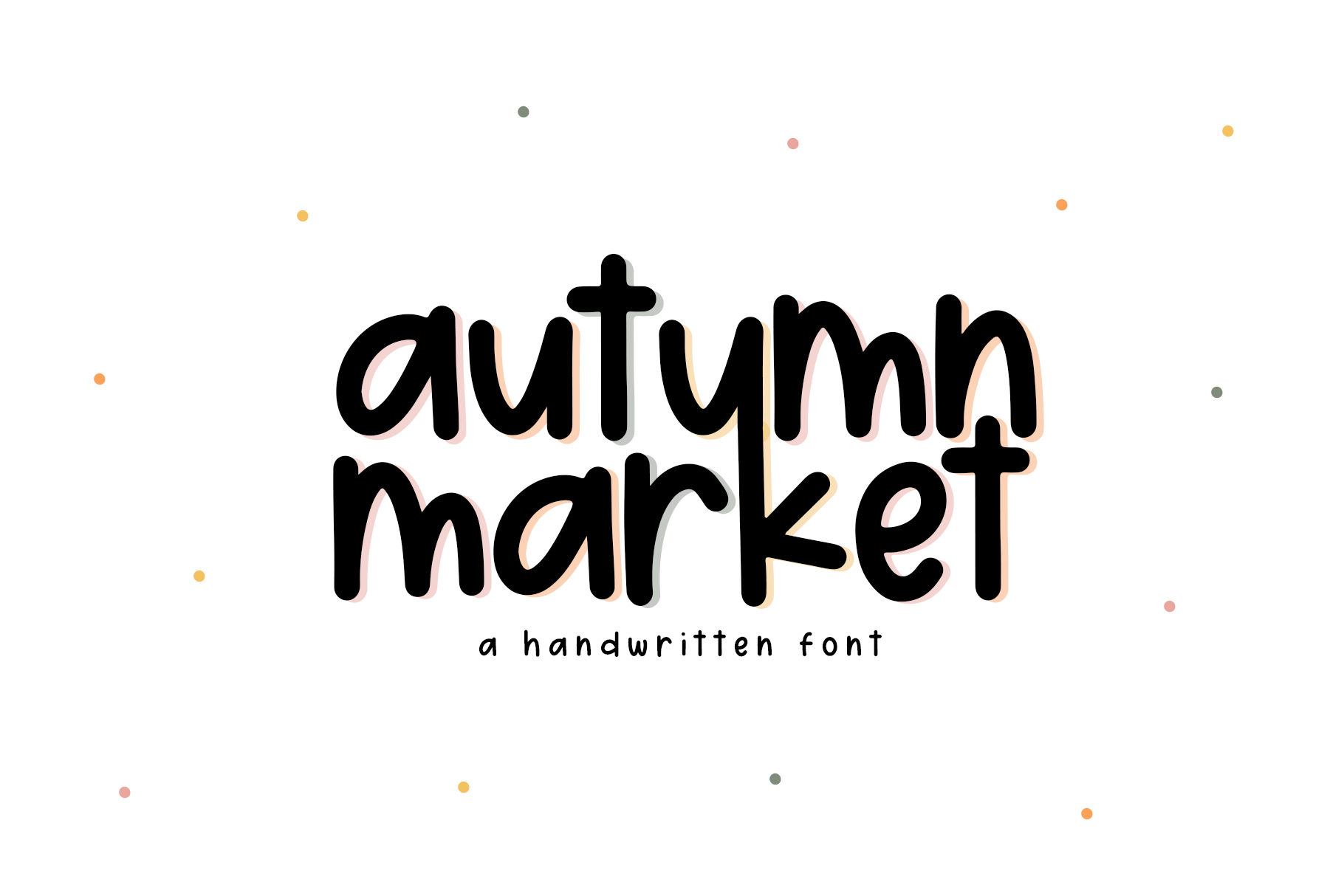
Autumn Market | Handwritten Font
Autumn Market is an easy-to-read, handwritten font.
This font is perfect for branding, logos, cricut projects, shirts, svg designs and more!